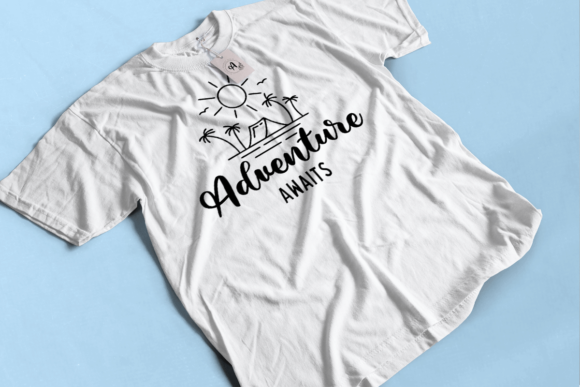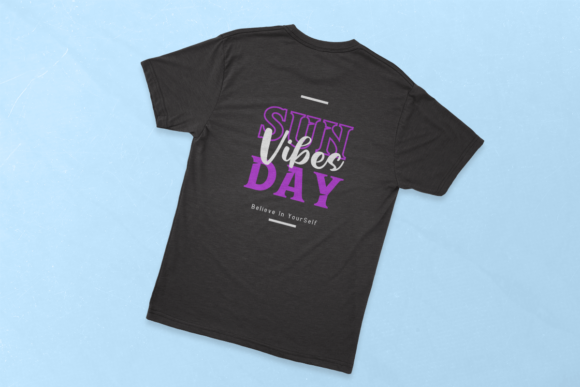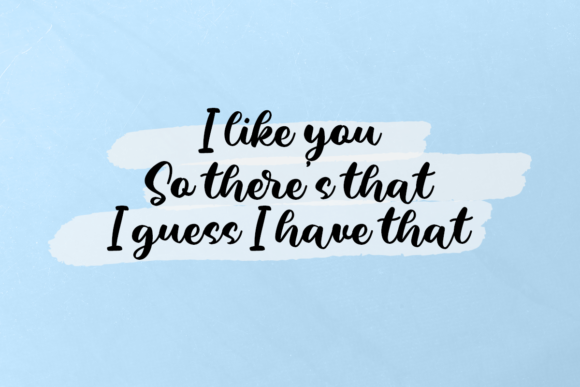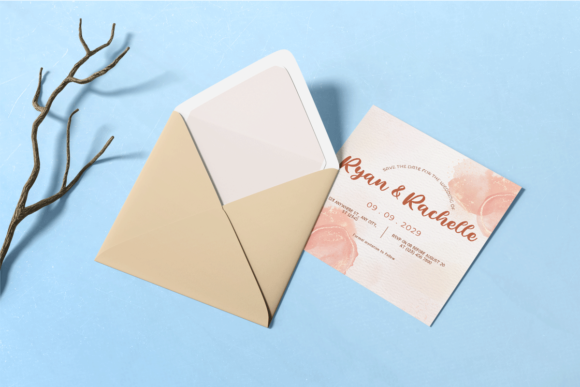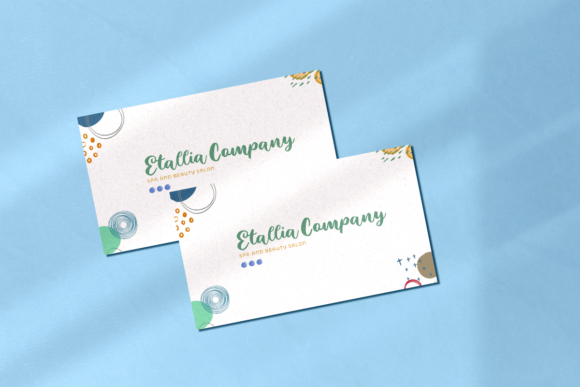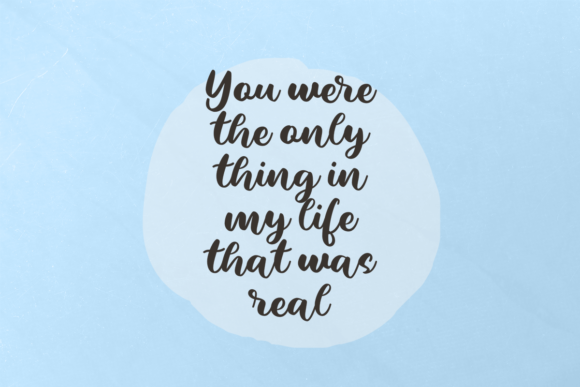
Introducing Artlantis Font: Elevate Your Designs with Luxury and Elegance
Are you a designer or crafter looking for a unique and stunning font to add a touch of luxury to your projects? Look no further than Artlantis Font! This beautiful and cute handwritten font is designed to make a lasting impact and elevate your designs to the next level.
The Unique Feel of Artlantis Font
Artlantis Font boasts a distinctive and elegant feel that sets it apart from other fonts. Its handwritten style exudes a sense of sophistication and refinement, making it perfect for designs that require a touch of luxury. Whether you’re working on a branding project, packaging design, or digital artwork, Artlantis Font is sure to impress.
PUA Encoding for Easy Access to Glyphs and Ligatures
One of the standout features of Artlantis Font is its PUA (Private Use Area) encoding. This means that you can easily access all the amazing glyphs and ligatures that make this font so special. With PUA encoding, you can unlock the full potential of Artlantis Font and take your designs to new heights.
Add a Luxury Spark to Your Designs
Artlantis Font is designed to add a luxury spark to any design project. Its unique feel and stunning impact make it perfect for a wide range of applications, from high-end branding and advertising to packaging design and digital art. Whether you’re looking to create a sophisticated and elegant design or something more playful and whimsical, Artlantis Font is the perfect choice.
Artlantis Font is a versatile font that is perfect for designers and crafters of all levels. Whether you’re a seasoned professional or just starting out, this font is easy to use and can be incorporated into a wide range of design projects. With its elegant feel and luxurious vibe, Artlantis Font is sure to become a go-to font in your design arsenal.
Key Features of Artlantis Font
- Beautiful and cute handwritten font with a unique feel
- Perfect for adding a luxury spark to any design project
- Elegant and sophisticated feel
Tips for Using Artlantis Font
Here are a few tips for getting the most out of Artlantis Font:
- Use Artlantis Font to add a touch of luxury to your branding and packaging designs
- Experiment with different font sizes and colors to create a unique look
- Combine Artlantis Font with other fonts to create a striking contrast
- Use the glyphs and ligatures to add visual interest to your designs